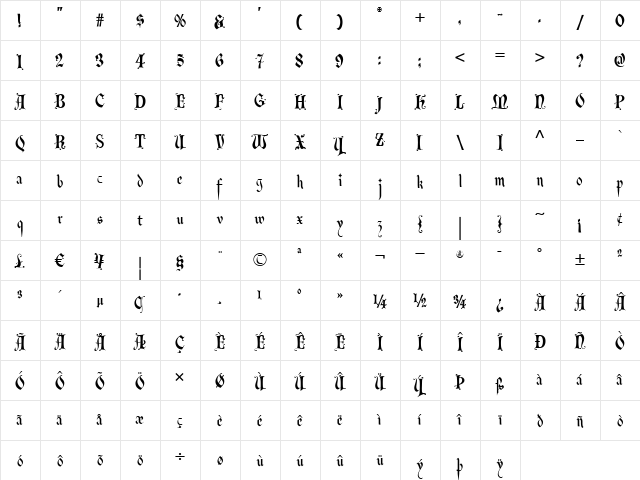
Kynges X NF Regular
Design Context for Kynges X NF Typeface
Kynges X NF is a composed and adaptable typeface that performs quietly and consistently across a wide range of design contexts.
Pro Tip: Use Kynges X NF in both headline and body roles to test its range before committing to a single application.